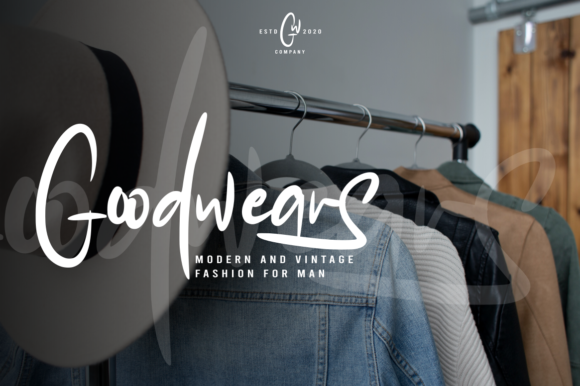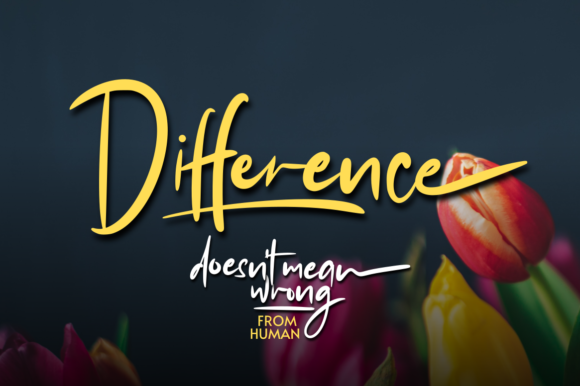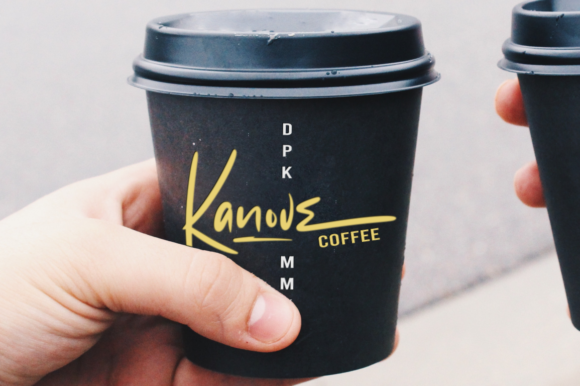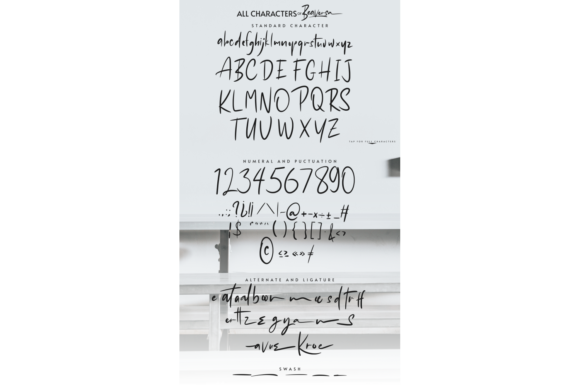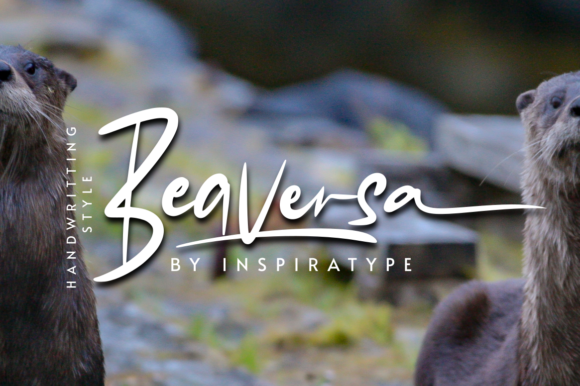
Introducing Beaversa Font: The Ultimate Handwritten Font for Creative Projects
Are you tired of using the same old fonts for your design projects? Look no further than Beaversa Font, a relaxed and friendly handwritten font that’s perfect for adding a personal touch to your creations. In this article, we’ll dive into the features and benefits of Beaversa Font, and explore how it can elevate your branding, packaging, invitations, and more.
What is Beaversa Font?
Beaversa Font is a trendy and neat handwritten font that’s designed to bring a sense of warmth and approachability to your designs. With its smooth and flowing lines, Beaversa Font is ideal for creating a friendly and inviting atmosphere in any project. Whether you’re working on a logo, invitation, quote, t-shirt, label, poster, or packaging, Beaversa Font is the perfect choice.
Key Features of Beaversa Font
• Relaxed and Friendly: Beaversa Font has a laid-back and approachable vibe that’s perfect for creating designs that feel personal and inviting.
• Trendy and Neat: With its clean and modern lines, Beaversa Font is perfect for designers who want to create fresh and stylish designs.
• Versatile: Beaversa Font can be used for a wide range of projects, from branding and packaging to invitations and social media graphics.
• Easy to Read: Beaversa Font is designed to be easy to read, making it perfect for body text and headlines.
Benefits of Using Beaversa Font
So why choose Beaversa Font for your next project? Here are just a few benefits of using this amazing font:
• Adds a Personal Touch: Beaversa Font adds a personal and human touch to your designs, making them feel more approachable and relatable.
• Stand Out from the Crowd: With its unique and stylish lines, Beaversa Font can help your designs stand out from the crowd and grab attention.
• Perfect for Branding: Beaversa Font is ideal for creating a consistent brand identity that’s friendly, approachable, and memorable.
• Easy to Pair: Beaversa Font pairs well with a wide range of other fonts, making it easy to create a cohesive look and feel.
Creative Ways to Use Beaversa Font
So how can you use Beaversa Font in your designs? Here are a few creative ideas to get you started:
• Branding and Packaging: Use Beaversa Font to create a friendly and approachable brand identity that resonates with your target audience.
• Invitations and Events: Add a personal touch to your invitations and event materials with Beaversa Font.
• Quotes and Inspiration: Use Beaversa Font to create inspiring and motivational quotes that feel personal and relatable.
• T-Shirts and Merchandise: Create stylish and eye-catching t-shirts and merchandise with Beaversa Font.
• Posters and Flyers: Use Beaversa Font to create bold and eye-catching posters and flyers that grab attention.
In conclusion, Beaversa Font is a versatile and stylish handwritten font that’s perfect for adding a personal touch to your designs. With its relaxed and friendly vibe, trendy and neat lines, and ease of use, Beaversa Font is ideal for a wide range of creative projects. Whether you’re a designer, crafter, or DIY enthusiast, Beaversa Font is a must-have font that can help take your designs to the next level.